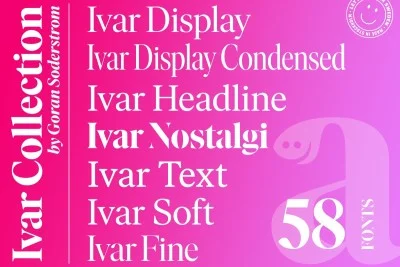
Ivar Collection Font
Ivar Collection Font is perfect for Nordic-inspired branding projects, Scandinavian design applications, minimalist editorial layouts, furniture company logos, architectural firm identities, lifestyle brand communications, premium packaging design, and contemporary web typography. This sophisticated typeface works exceptionally well in both digital applications and print media where clean aesthetics and Nordic elegance are fundamental design principles.
What makes Ivar Collection Font so exciting is its masterful interpretation of Scandinavian design philosophy with refined letterforms that embody the essence of Nordic minimalism and functional beauty. The font features clean, geometric characters with precise proportions, subtle humanistic touches, and understated elegance that creates an atmosphere of sophisticated simplicity. Its refined personality and Nordic heritage make it ideal for brands seeking to communicate quality craftsmanship, sustainable values, and timeless design while appealing to audiences who appreciate thoughtful aesthetics and functional excellence.
The Ivar Collection Font family includes comprehensive weight variations from light to bold, along with matching italic styles and condensed versions. Each style maintains the typeface's Nordic character while offering extensive multilingual support, clean numerals, refined punctuation marks, and special characters designed to enhance Scandinavian-inspired communications and international design applications.
This remarkable typeface represents the perfect fusion of Nordic design tradition and contemporary typographic excellence for modern lifestyle brands. Whether you're developing furniture brand identities, creating architectural presentations, or designing sustainable product campaigns, Ivar Collection Font delivers the refined sophistication and versatility needed to communicate Nordic values effectively. The font's Scandinavian aesthetic makes it particularly effective for design studios, furniture manufacturers, lifestyle brands, and organizations celebrating minimalism and sustainable design principles.
The meticulously crafted proportions and optimized functionality in Ivar Collection Font ensure exceptional performance while preserving its distinctive Nordic character. Its versatile nature allows seamless application from elegant headlines to readable body text, making it an invaluable tool for designers creating cohesive brand experiences that resonate with audiences seeking quality, simplicity, and thoughtful design solutions.